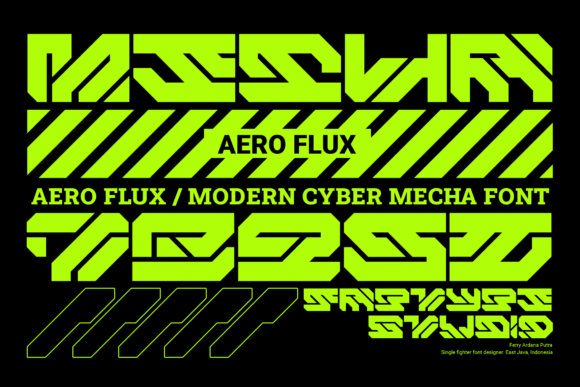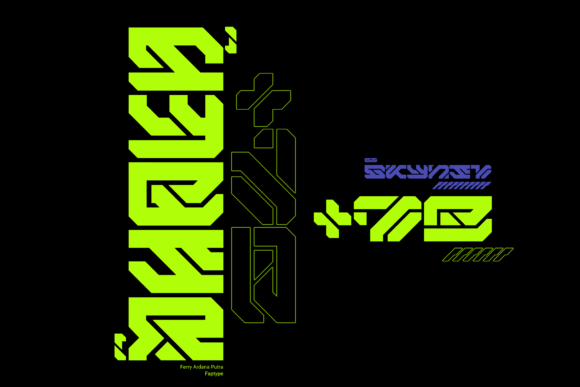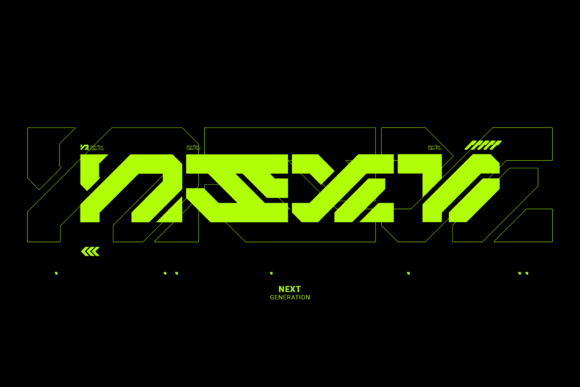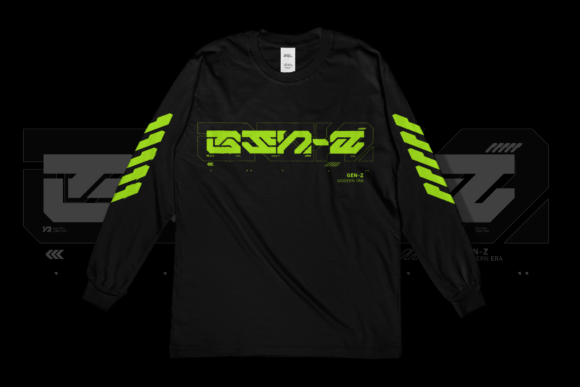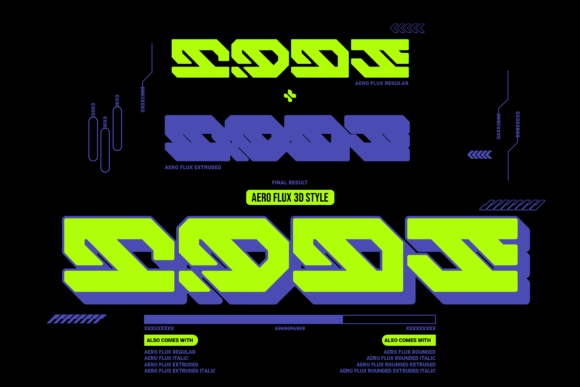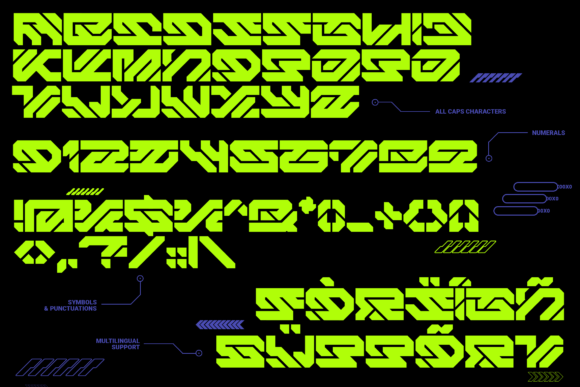
Aero Flux Font: Elevate Your Designs with a Futuristic and High-Tech Twist
In the realm of typography, fonts play a pivotal role in conveying the essence and aesthetic of a design. For those seeking to infuse their projects with a sense of innovation, progress, and cutting-edge technology, the Aero Flux Font is an exceptional choice. This futuristic and high-tech display font is meticulously crafted to make a statement, boasting a sleek design that is as modern as it is captivating.
Design Characteristics of Aero Flux Font
Aero Flux Font is distinguished by its sharp and angular letters, characterized by bold lines and geometric shapes. This design approach not only imparts a sense of depth and dimension to the text but also evokes a futuristic vibe that is hard to overlook. The geometric precision of the font lends itself well to technology and science-related projects, where the emphasis on innovation and forward-thinking is paramount.
The font’s modern style is versatile, making it an excellent fit for a variety of applications, including branding, advertising, and editorial layouts. Whether you’re working on a campaign for a tech startup, a feature article in a science magazine, or a product launch for a cutting-edge gadget, Aero Flux Font can help elevate your design to new heights.
One of the standout features of Aero Flux Font is its PUA (Private Use Area) encoding. This means that users can access all the delightful glyphs and swashes without any hassle, allowing for a seamless design experience. PUA encoding essentially unlocks the full creative potential of the font, providing designers with a wide array of typographic elements to play with.
This feature is particularly beneficial for designers who want to add a personal touch to their work or require more flexibility in their typography. With Aero Flux Font, you can easily incorporate intricate details, stylistic variations, and decorative elements into your designs, making them more engaging and visually appealing.
Applications of Aero Flux Font
The versatility of Aero Flux Font makes it suitable for a broad spectrum of design projects. Here are some of the key areas where this font truly shines:
- Branding: Create a lasting impression with a logo or brand identity that exudes innovation and sophistication.
- Advertising: Capture the attention of your audience with bold and futuristic ad copy that stands out.
- Editorial Layouts: Enhance the visual appeal of magazines, newspapers, and digital publications with a font that adds a touch of modernity.
- Technology and Science: Perfect for projects that require a typography style that communicates cutting-edge technology and scientific research.
Tips for Using Aero Flux Font Effectively
To make the most of Aero Flux Font, consider the following tips:
- Contrast is Key: Use Aero Flux Font in combination with simpler fonts to create visual contrast and hierarchy in your designs.
- Experiment with Sizes: The font’s bold lines and geometric shapes are striking at large sizes, but it can also be effective in smaller sizes for headings or subheadings.
- Play with Colors: While the font itself is a statement, experimenting with different colors can further enhance its impact and adaptability.
Aero Flux Font is more than just a typeface; it’s a design statement that can elevate your projects with its futuristic and high-tech aesthetic. Its sleek design, combined with PUA encoding for effortless glyph access, makes it an invaluable tool for designers looking to infuse their work with a sense of innovation and progress. Whether you’re working on a tech startup’s branding, a science magazine, or a futuristic advertising campaign, Aero Flux Font is poised to make a significant impact.